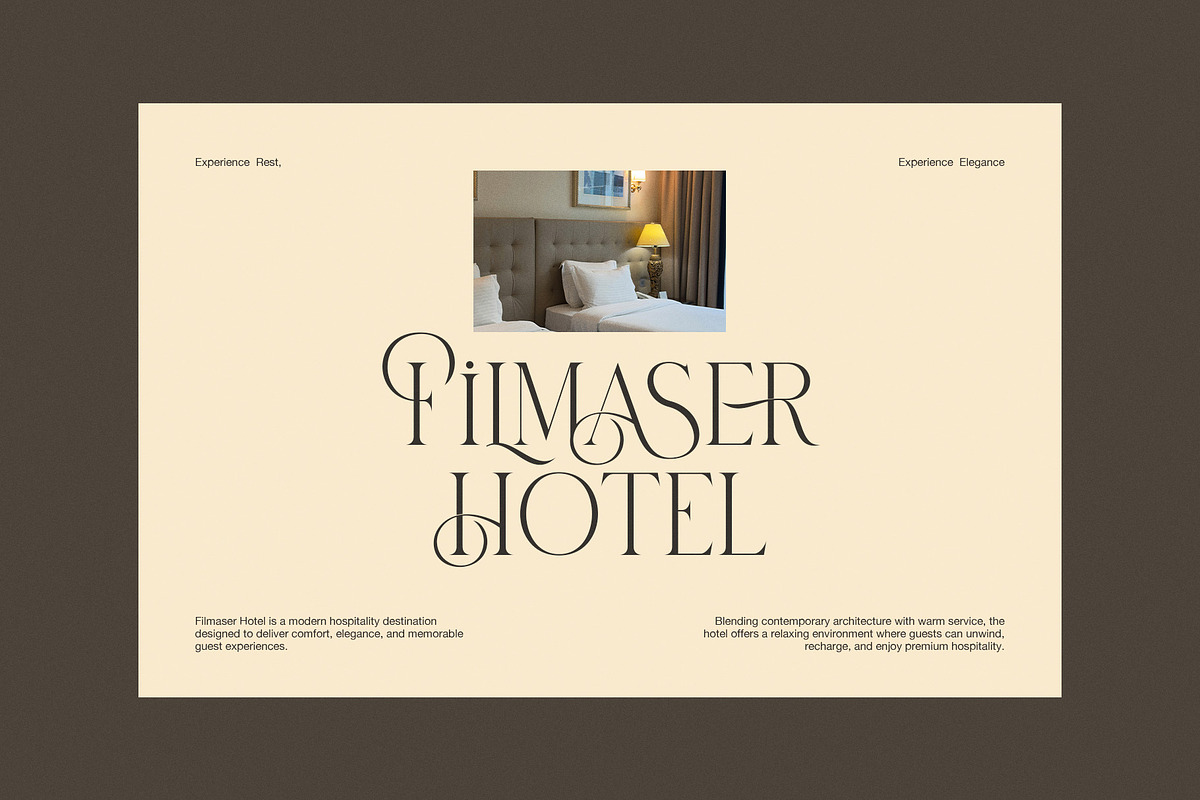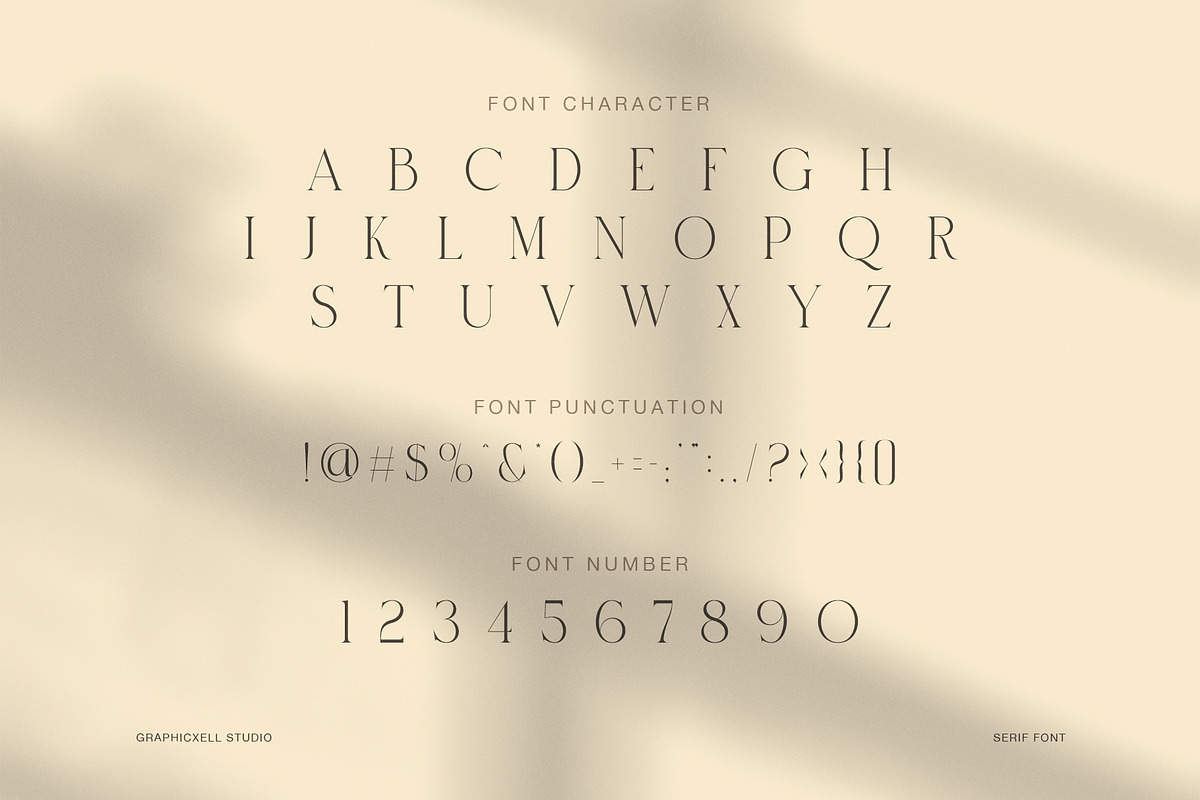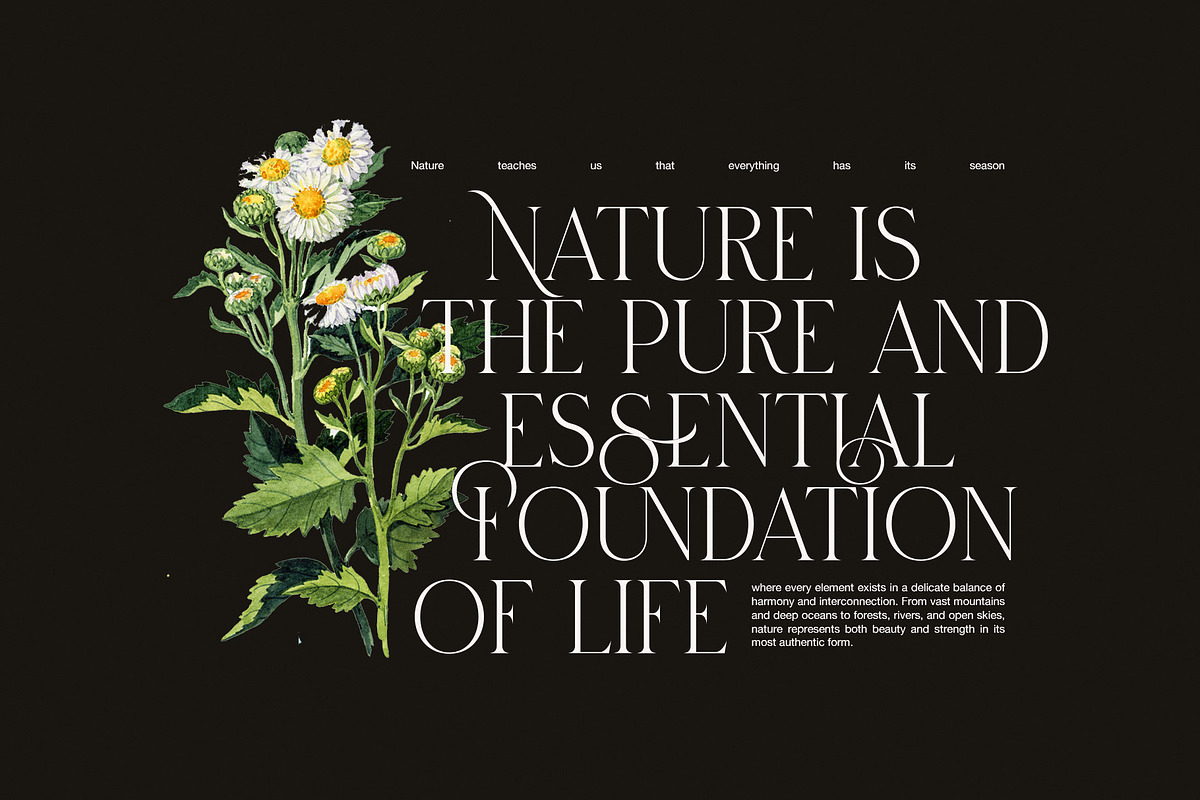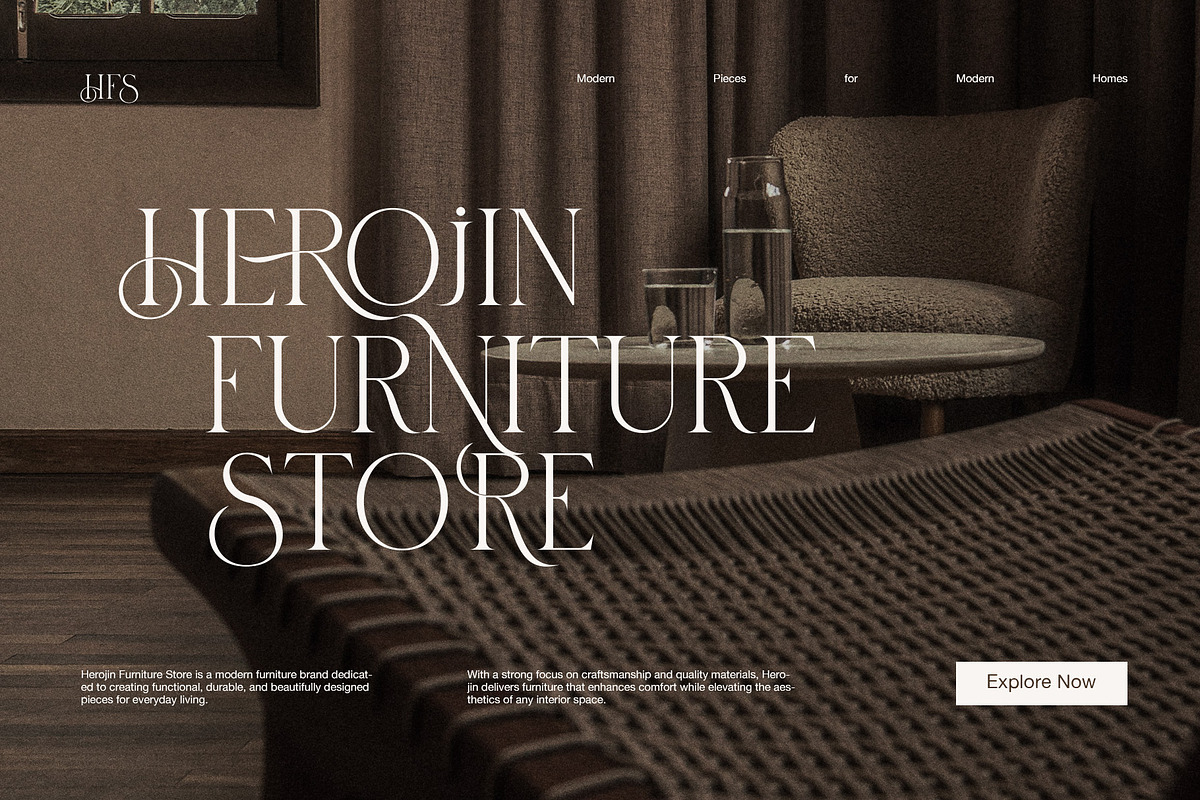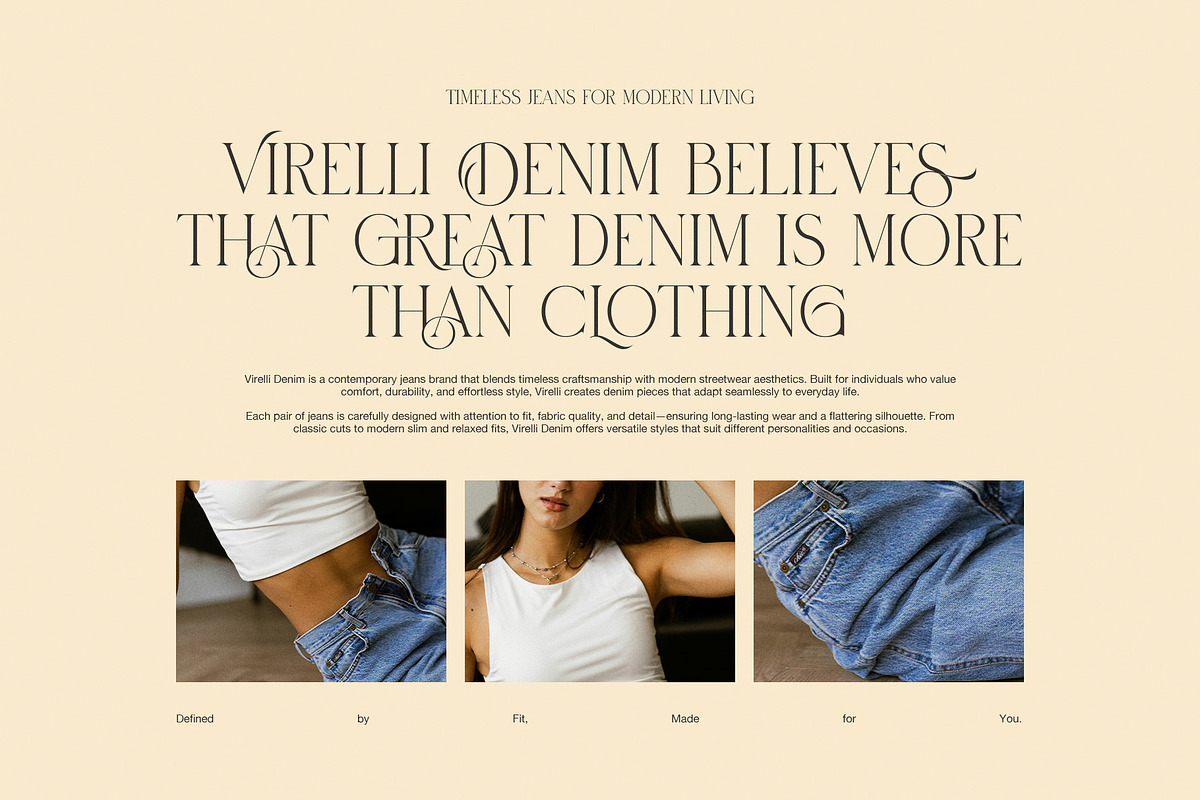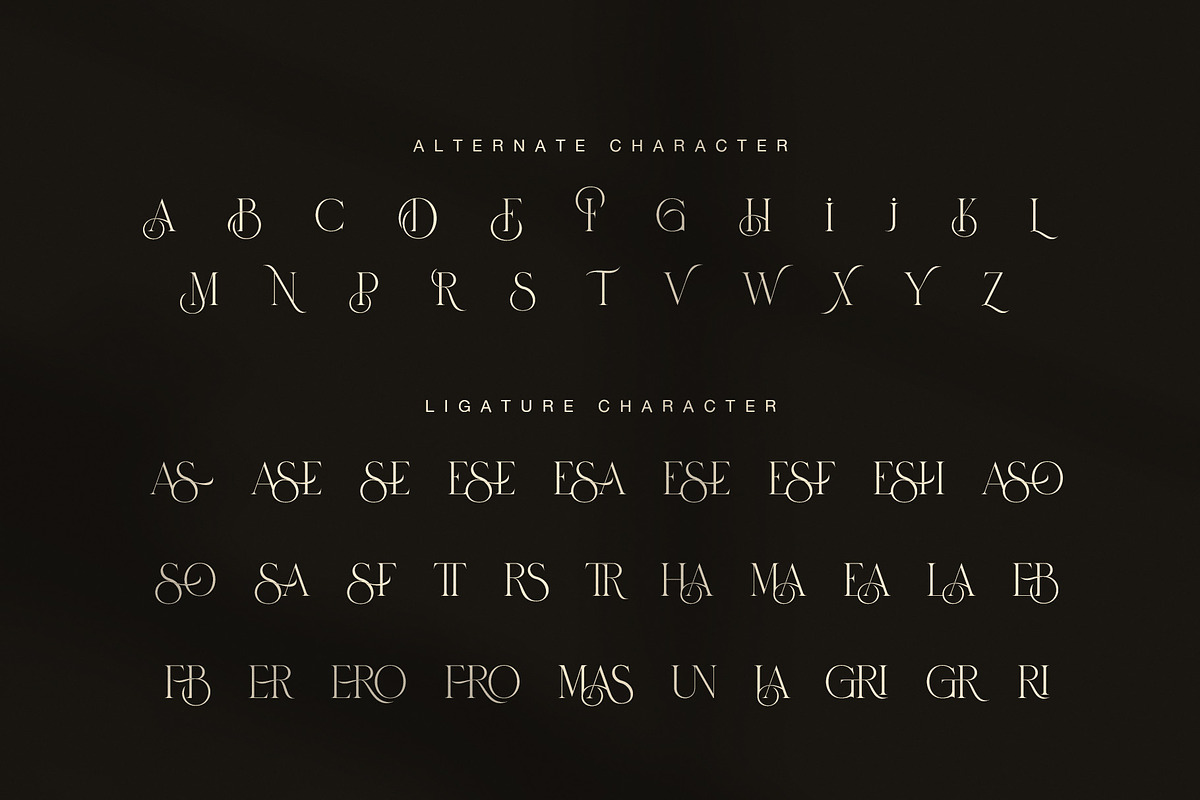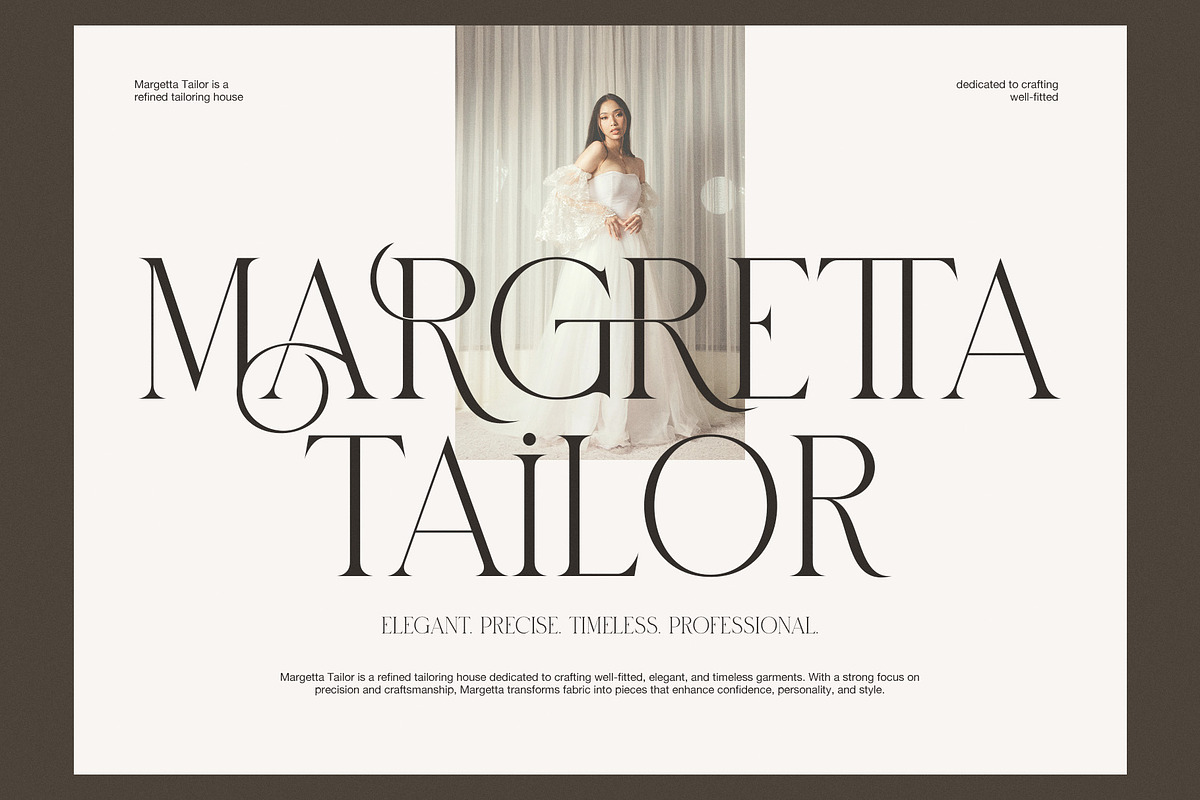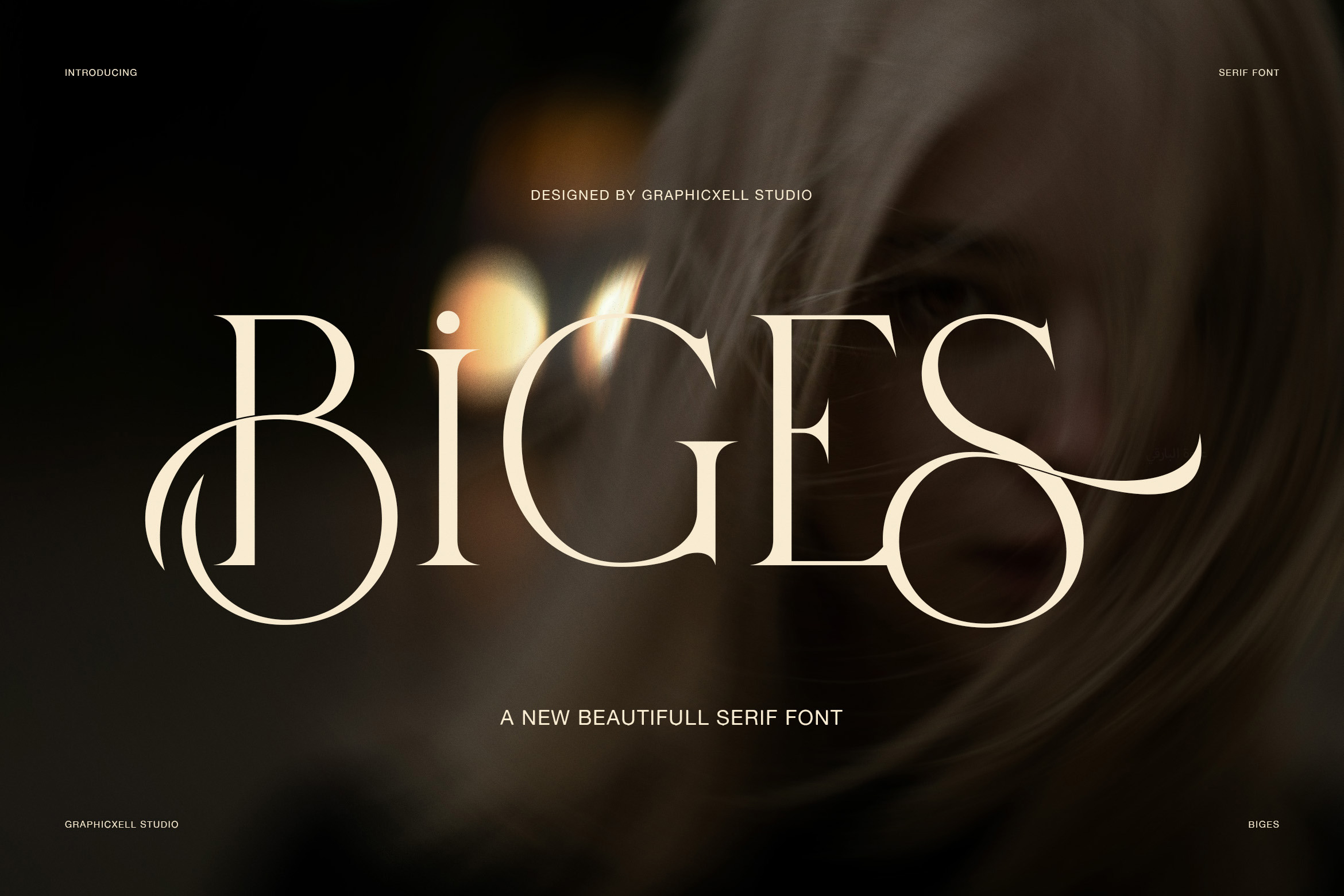
Biges Elegant Serif Font
Elegant Serif Style
Biges Elegant Serif Font is a refined serif typeface made for brands that need beauty, grace, and a premium look. Its tall letterforms, fine contrast, and smooth curves create a style that feels elegant, modern, and timeless.
Shape and Character
The font has clean serif details with graceful swashes that flow across selected letters. Because of this, Biges can turn simple words into stylish display typography. It feels soft, yet it still has a strong visual voice.
Also, the uppercase letters look slim, balanced, and classy. The wide spacing gives each word a calm and high-end feel. Therefore, this font works very well for logos, headlines, and brand names that need a polished look.
Alternates and Ligatures
Biges includes beautiful alternate characters and ligatures. These features help designers create a custom look without extra effort. Moreover, the curved lines in letters such as B, G, S, R, A, and M add a clear luxury mood.
As a result, every design can feel more personal and refined. The font is best used in large sizes, since its fine details need space to shine. However, it can also support short text when the layout is clean.
Best Uses
Biges is a strong choice for many creative projects, especially when the goal is to look elegant and trusted.
Best uses for Biges include:
- Luxury logo design
- Fashion brand identity
- Hotel and hospitality branding
- Furniture store branding
- Wedding invitations
- Tailor and boutique logos
- Editorial magazine titles
- Nature and floral packaging
- Premium product labels
- Website hero headers
- Branding Benefits
In addition, Biges pairs well with a simple sans serif font. This mix keeps the text easy to read while the serif letters bring style. So, your design can feel clean, rich, and professional.
Because Biges has a graceful yet bold display style, it fits both modern and classic themes. For example, it can feel warm for hotel branding, refined for fashion, and natural for floral designs.
Final Thoughts
Overall, Biges Elegant Serif Font is perfect for designers who want a classy serif font with smooth swashes, lovely alternates, and a luxury brand feel.